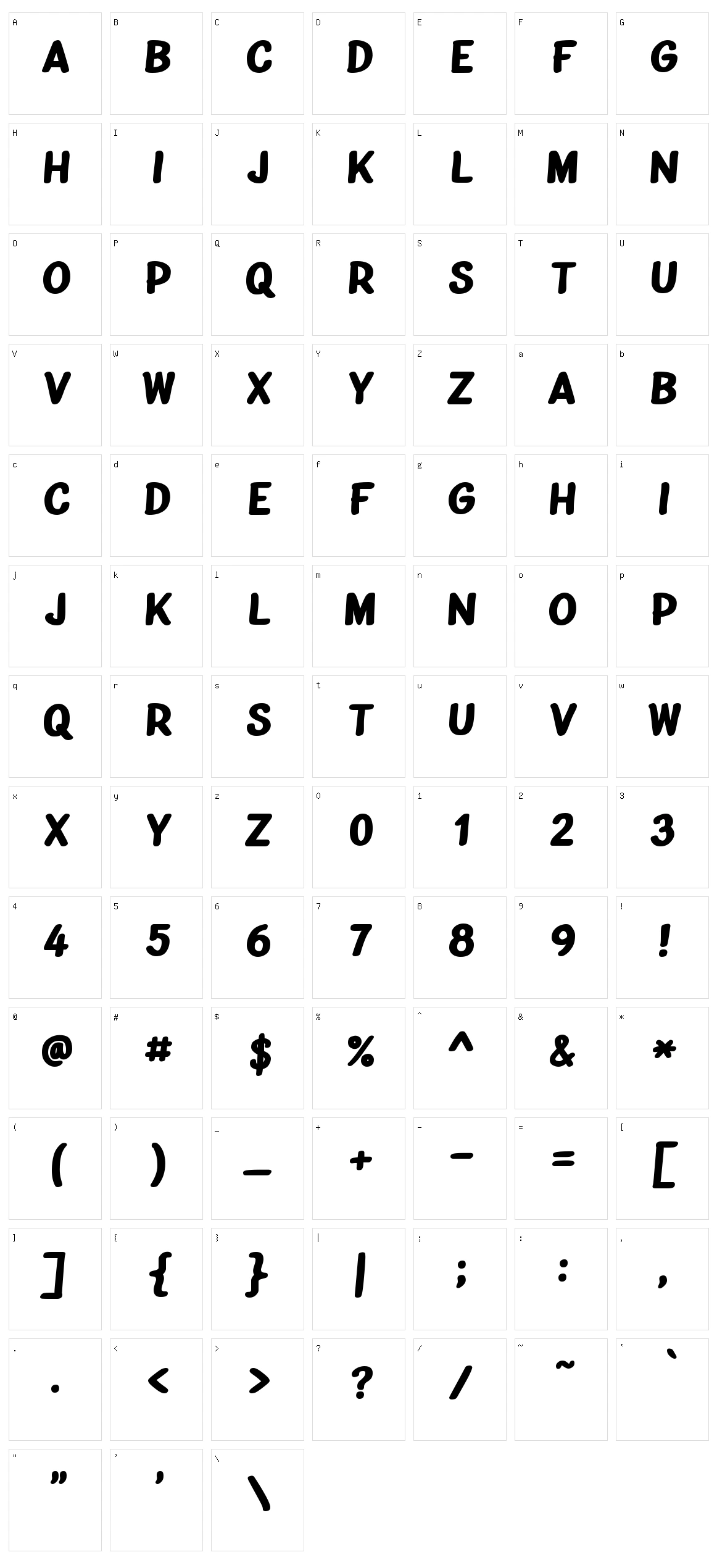
This font started as an italic version of my font Bublina the Dog for VileMonarch.com.
However during the tweaking it became so different from the original that it became a new font.